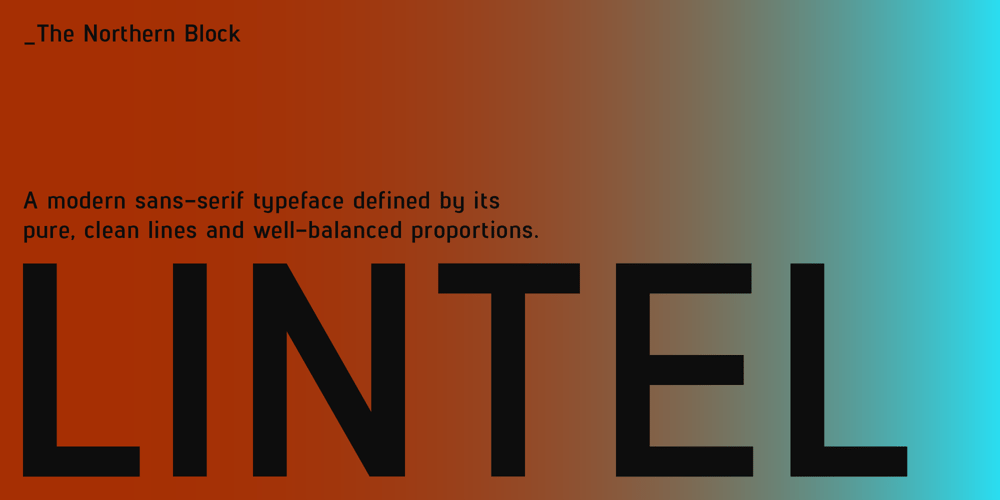
Lintel Font Family was designed by Jonathan Hill and published by The Northern Block. Lintel contains 16 styles and family package options. Lintel is a modern sans-serif typeface defined by its pure, clean lines and well-balanced proportions. While its design follows a strict grid structure, the characters maintain a natural flow, avoiding rigidity. A standout feature is its rounded characters with flat sides, creating a distinctive pill-shaped appearance that enhances uniformity and readability. Designed for versatility, Lintel is suited for a wide range of applications. Each style includes 500 meticulously crafted characters, along with extensive OpenType features such as five numeral variations, including inferiors, superiors, and fractions. The typeface also supports a broad range of languages, covering Western, Central, and Southern Europe, as well as Cyrillic scripts.